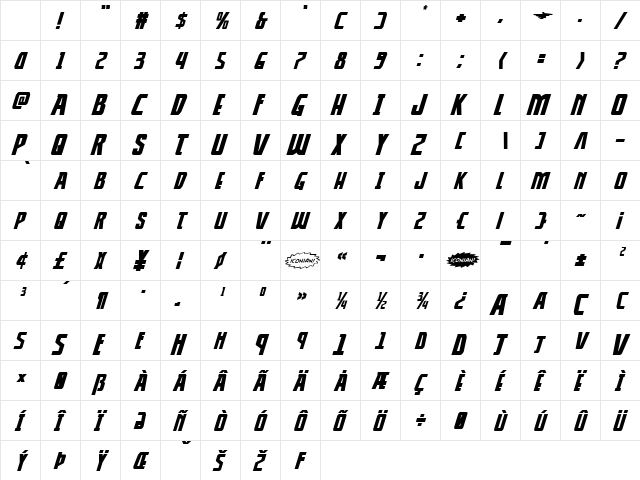
Thunder-Hawk Drop Expanded Italic Free Font
Thunder-Hawk Drop Expanded Italic Expanded Italic
Style: Expanded Italic
Design Context for Thunder-Hawk Drop Expanded Italic
Thunder-Hawk Drop Expanded Italic is a composed and adaptable typeface that performs quietly and consistently across a wide range of design contexts. The slanted form adds forward momentum and visual energy.
Pro Tip: Use Thunder-Hawk Drop Expanded Italic for emphasis, pull quotes, and subheadings where its slanted energy can add rhythm to the layout.